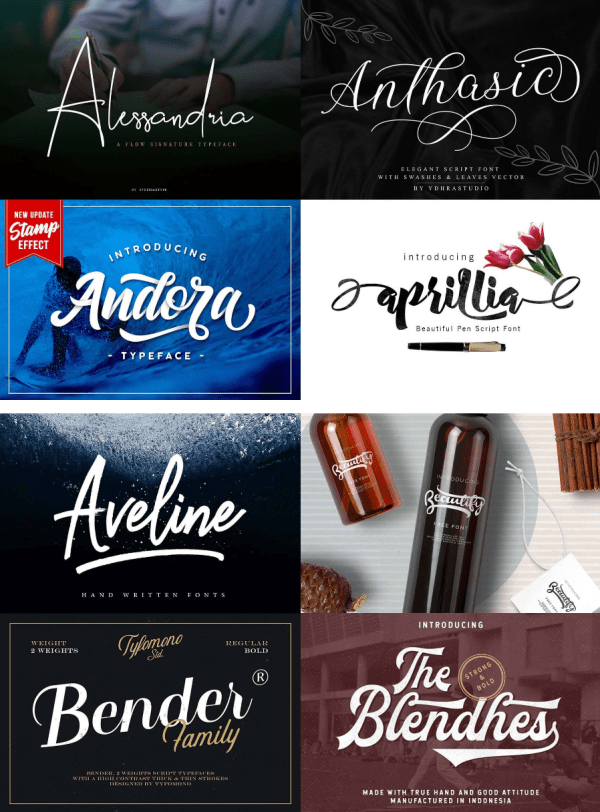
Freebie Wednesday: 30 Free Script Fonts.
The collection includes scripts ideal for branding, scripts perfect for imitating lettering, and scripts made for communicating. There are masculine scripts and feminine scripts, traditional scripts and contemporary scripts, elegant scripts and grungy scripts. 30 different voices for expressive typography. Once you take into account the variations in weight, style, and swashes, there are 65+ font files to download and enjoy.
In the download you’ll find: Alessandria, Andora, Anthasic, Aprillia, Aveline, Beautify, Bender, Blendhes, Blusty, Fibonaccy Journey, Fountain, Frutilla, Hadfield, Jelytta, Kitten, Lauren, Magnolia, Manyland, Matane, Milea, Monday Bay, Pink, Sansterdam, Santelia, Selima, Sophistica, Spirited, Sweet Buttermilk, Sydnee, and Valerissa.